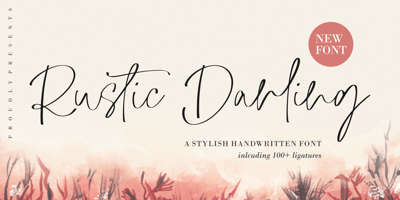
Rustic Darling
Rustic Darling font
Rustic Darling Font Family was designed by Andre Bima Falah Rabbani and published by Atharuah Studios. Rustic Darling contains 1 styles and family package options. Introducing Rustic Darling; A stylish handwritten script font! Equipped with 117 ligatures to create the beauty and unique side of the font.It’s the perfect choice for stylish branding & logo projects, wedding invitations and cards, handwritten quotes, editorial designs, and more.What’s Included:Rustic Darling comes with a single font file that includes uppercase, lowercase, numbers, punctuation, and multilingual support.That’s it! I hope you enjoy it.You can also say hello to me on Instagram: https://www.instagram.com/atharuah_Thank You!